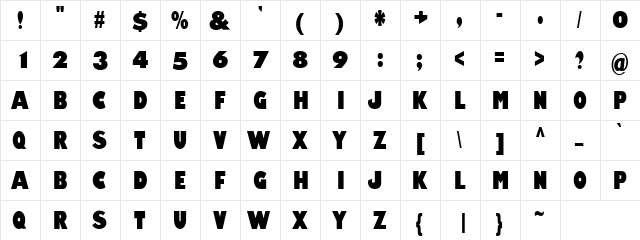
Amity Jack Regular
| Foundry | AJ Paglia |
| Designer | AJ Paglia |
Design Context for Amity Jack Typeface
Amity Jack offers clean, dependable letterforms without strong stylistic allegiance, making it a practical choice for designers who need flexibility.